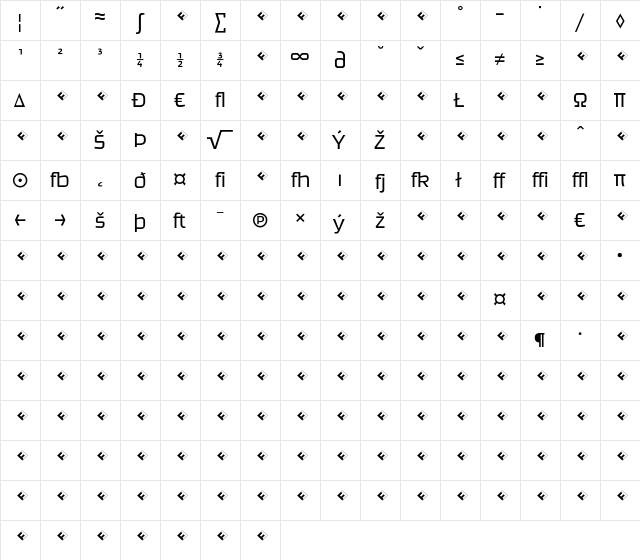
Ginger-LightExpert Regular
Design Context for Ginger-LightExpert Typeface
Ginger-LightExpert is a composed and adaptable typeface that performs quietly and consistently across a wide range of design contexts. The delicate stroke weight brings airiness and refinement to layouts.